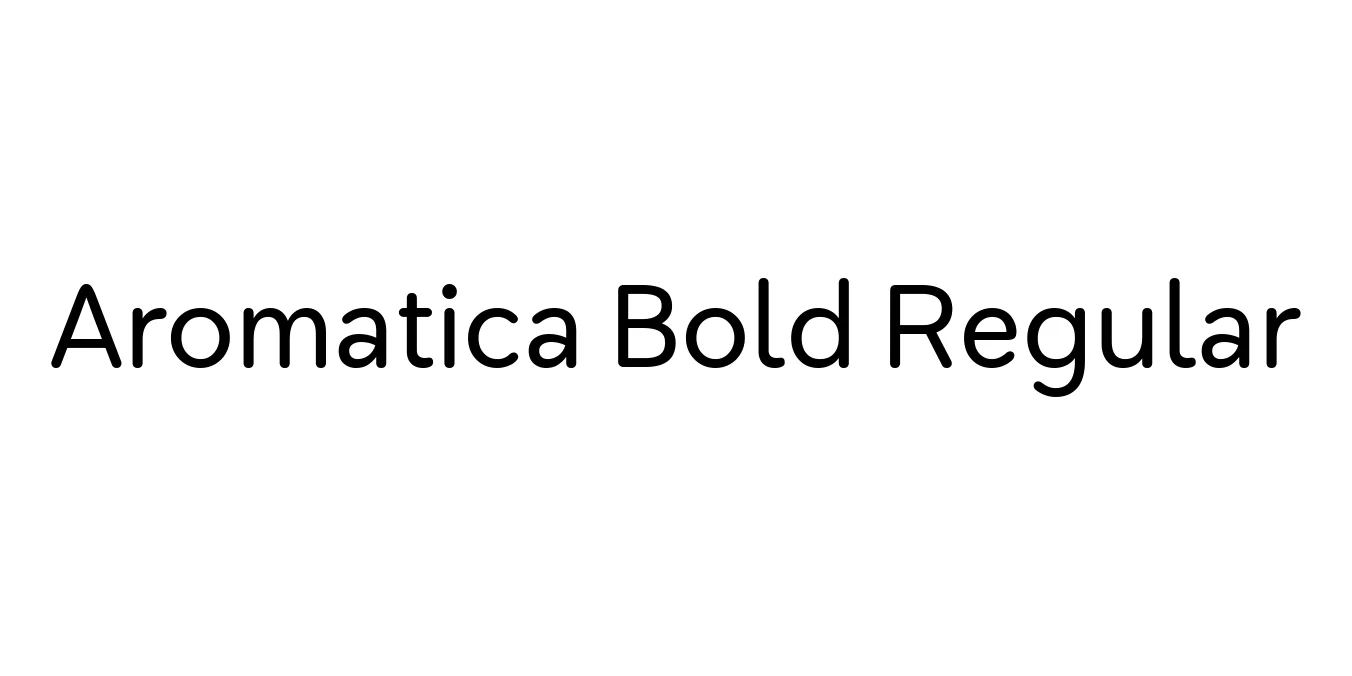
Aromatica Bold Regular
Designed by Manuel Corradine
| Category | Rounded Sans-Serif |
| Designer | Manuel Corradine |
Aromatica Bold Regular is a distinctively rounded sans-serif typeface crafted by the renowned designer Manuel Corradine. This font is celebrated for its harmonious blend of geometric precision and soft, organic terminals, which lend a friendly and inviting character to any design project. Its bold weight is particularly effective at capturing attention without appearing aggressive, making it a staple for modern visual communication.
Released through the Corradine Fonts foundry, the Aromatica family has become a popular choice for designers working in the food, beauty, and lifestyle sectors. Its high legibility and balanced proportions ensure that it performs exceptionally well across various platforms, from high-resolution print packaging to mobile app interfaces, bridging the gap between professional structure and approachable aesthetics.
Ideal for creating warm and approachable brand identities for lifestyle companies.
Perfect for food, beverage, and cosmetic product labels that require a clean look.
Great for high-impact headers and user-friendly call-to-action buttons.
Effective for eye-catching social media graphics and promotional posters.